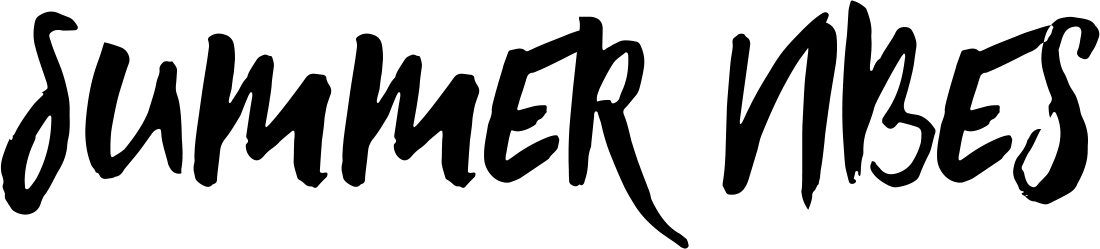
Summer Vibes Font
Summer Vibes is one of the most exciting fonts in the group of summer fonts. If you would like to try your luck at designing one of the most amazing diverse themes of sports, summer, and t-shirts, it’s the right time.
We suggest that this brush font be included in your download list even though it lacks lowercase letters. In addition, it is welcomed for tattoo designs and many sports posters.